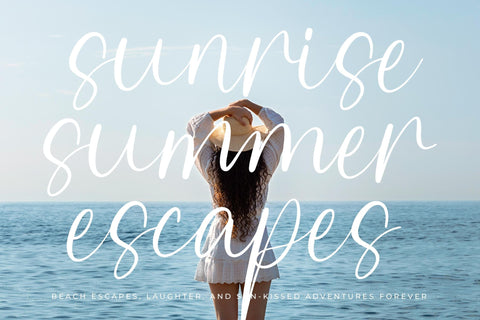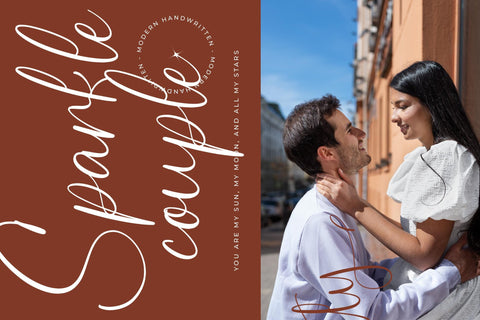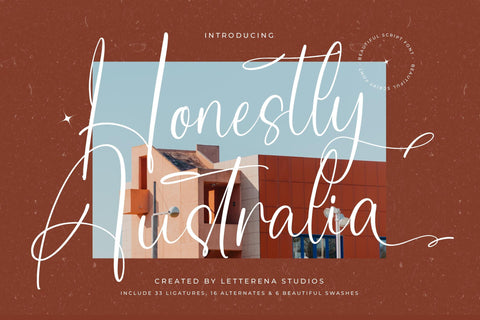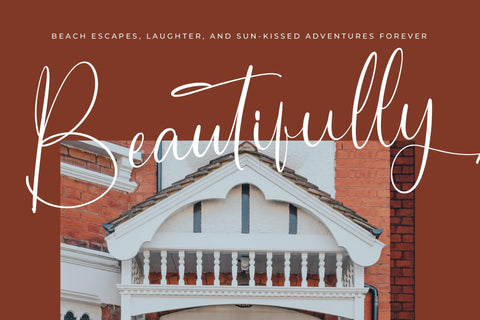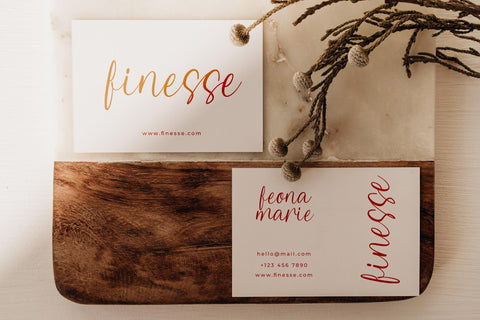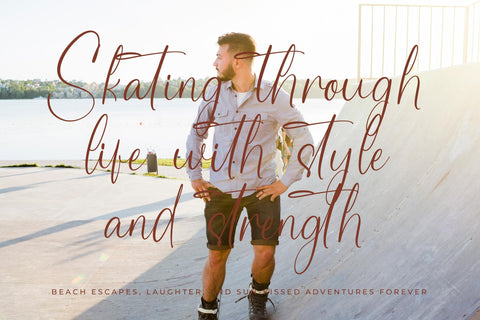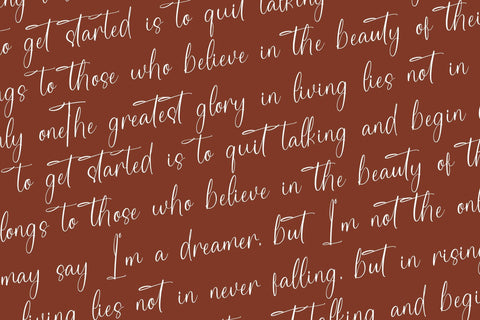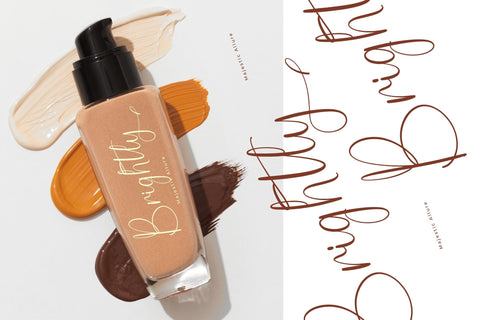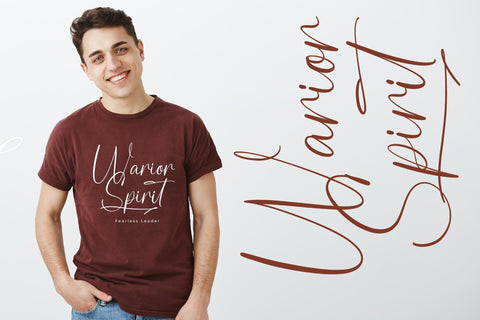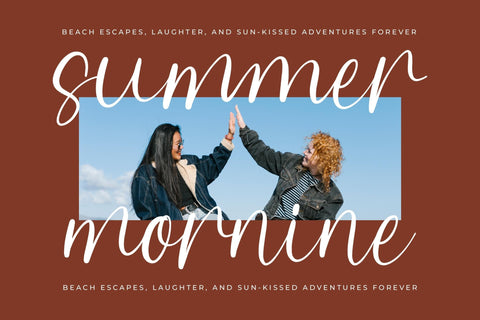
Honestly Australia - Beautiful Script Font
Honestly Australia - Beautiful Script Font , from Letterena, is a Luxury Script font, suitable for any projects such as: logos, branding projects, homeware designs, product packaging, mugs, quotes, posters, shopping bags, t-shirts, book covers, name card, invitation cards, greeting cards, label, photography, watermark, special events, and all your other luxury and beautiful projects that need a Luxury Script taste.